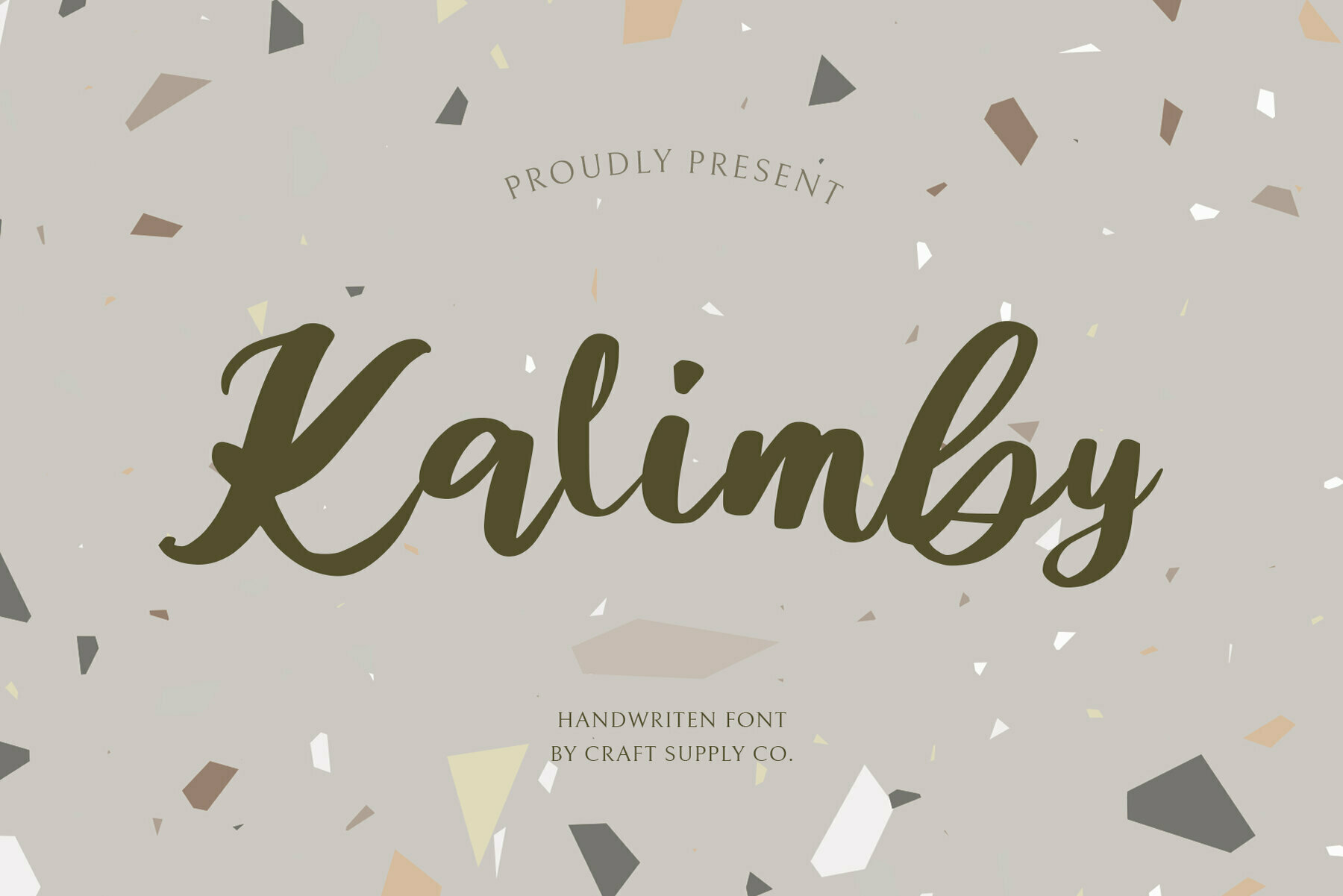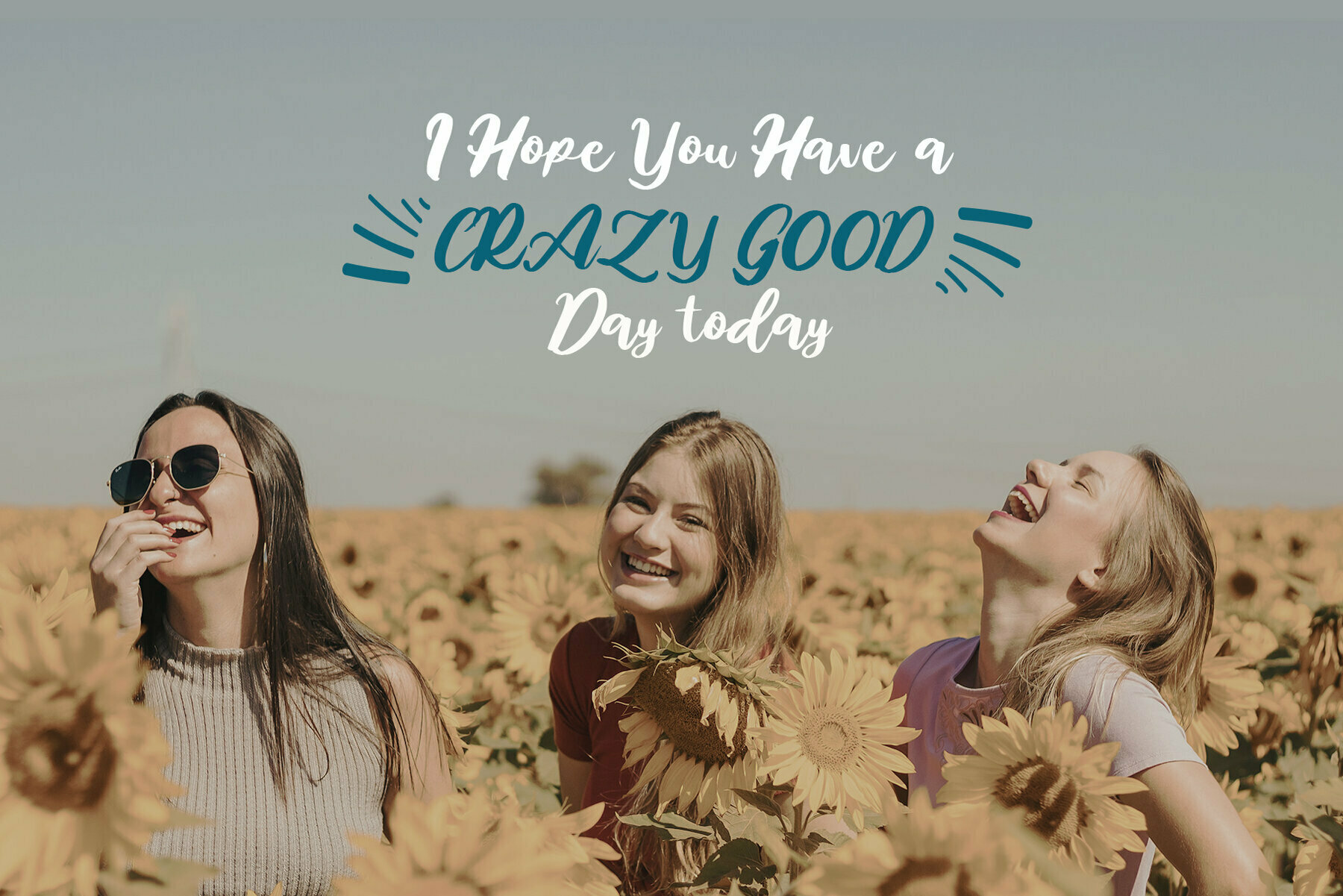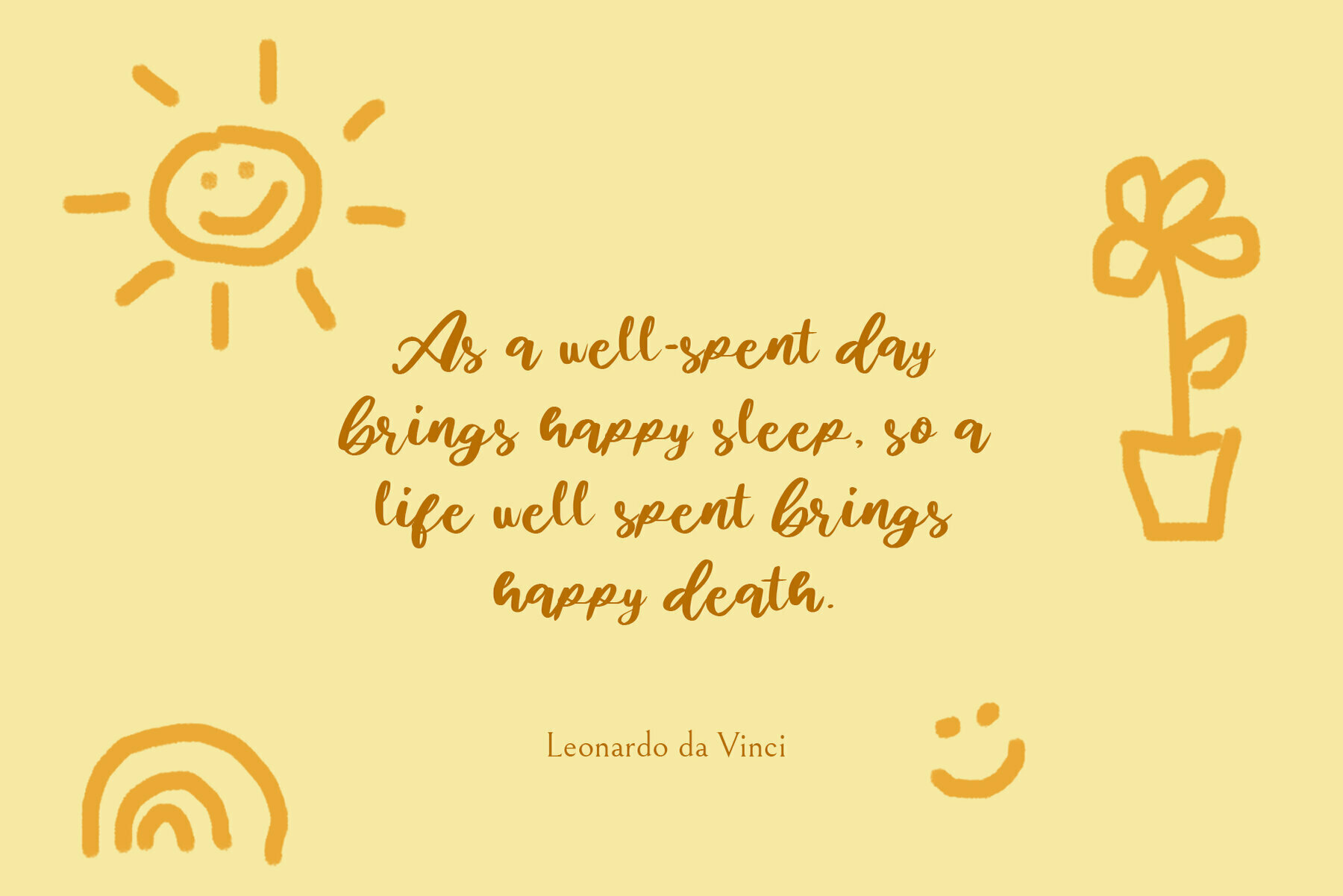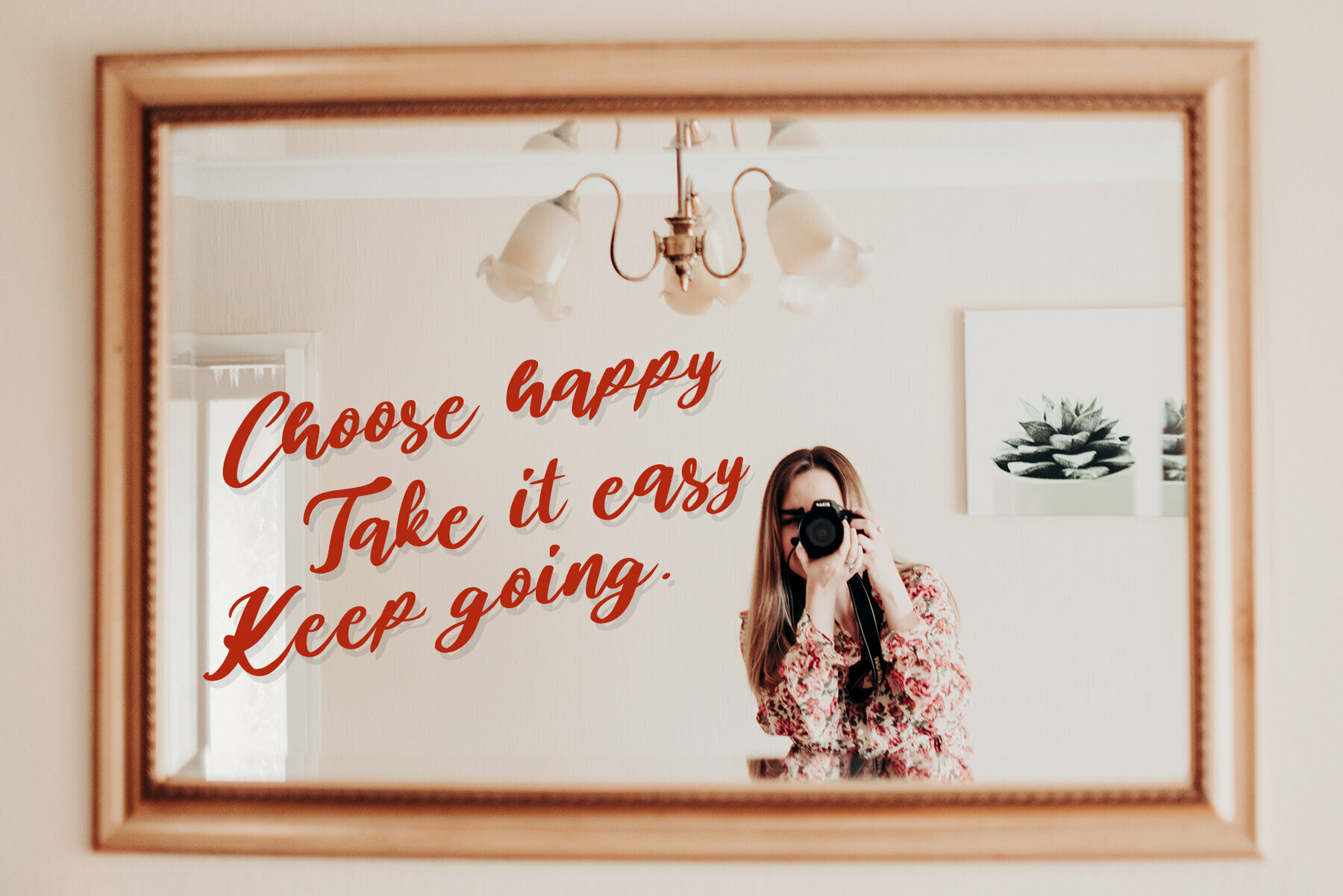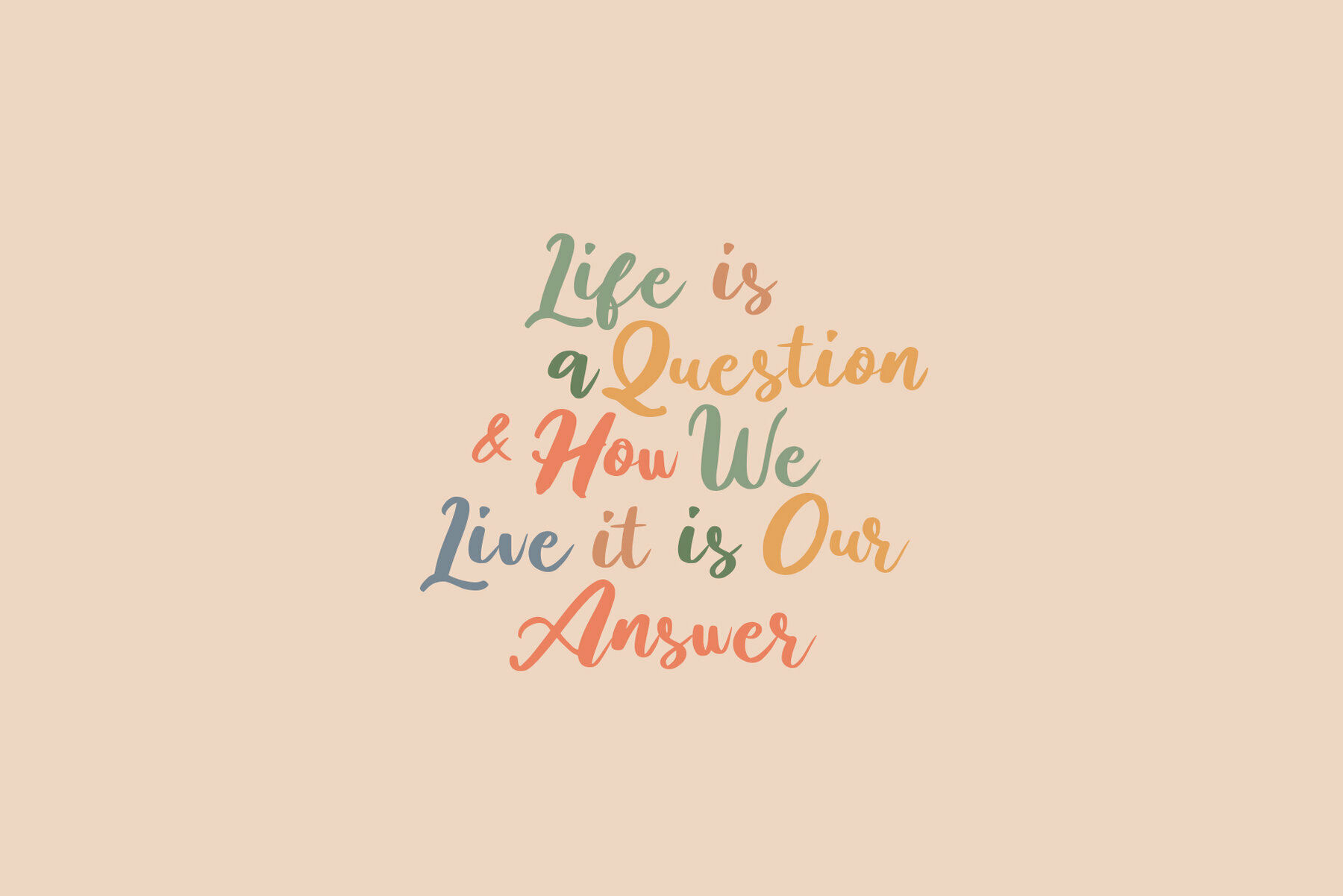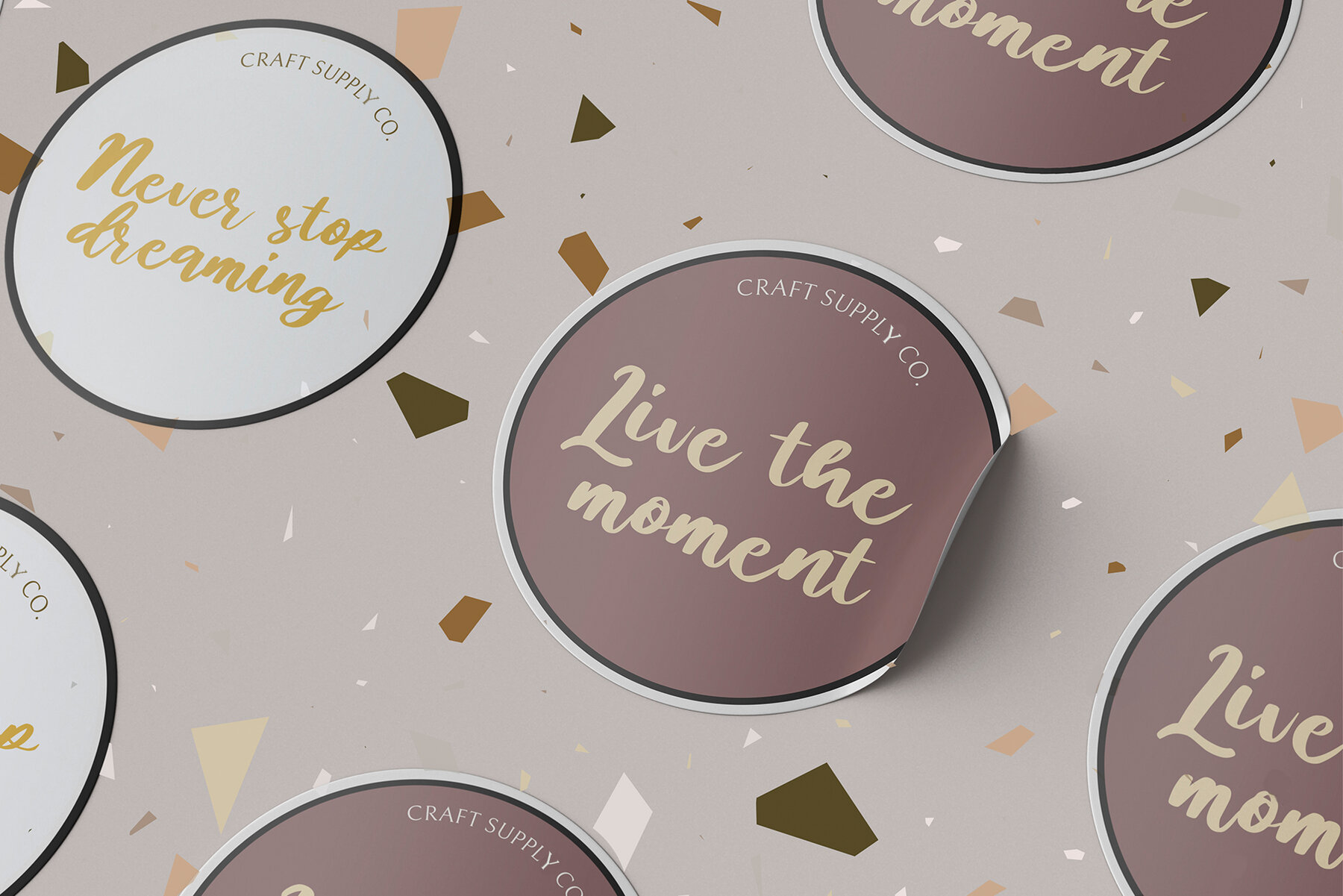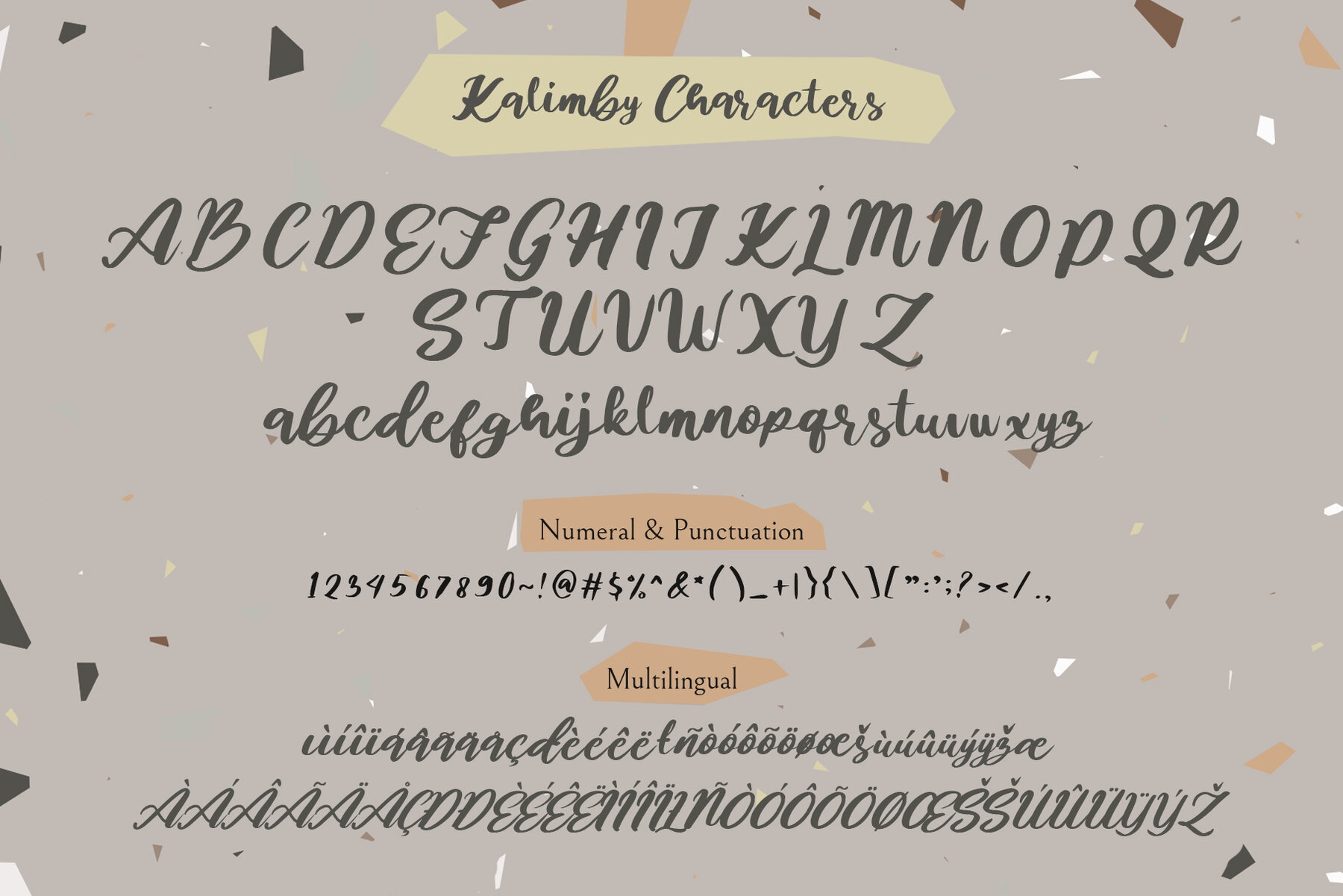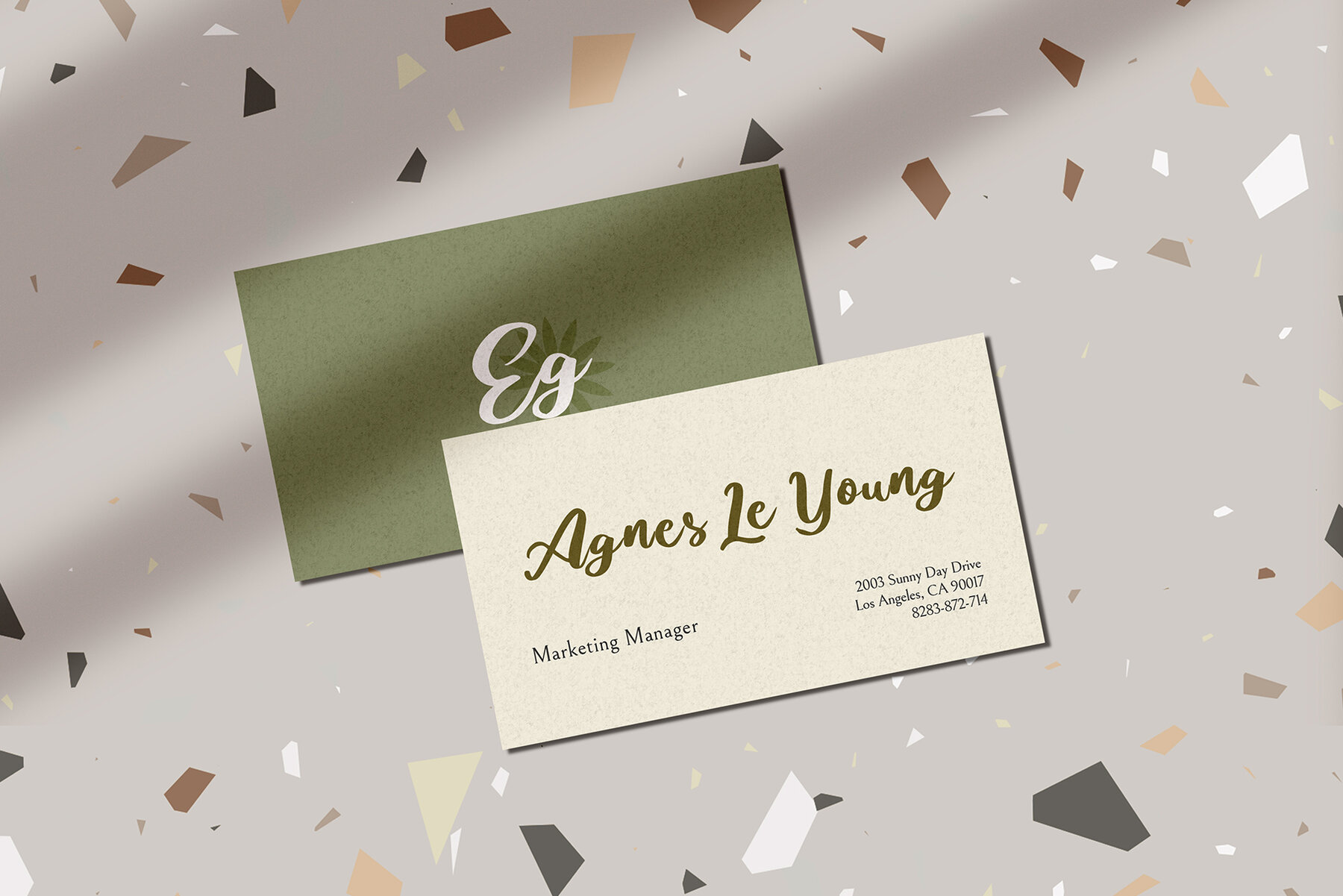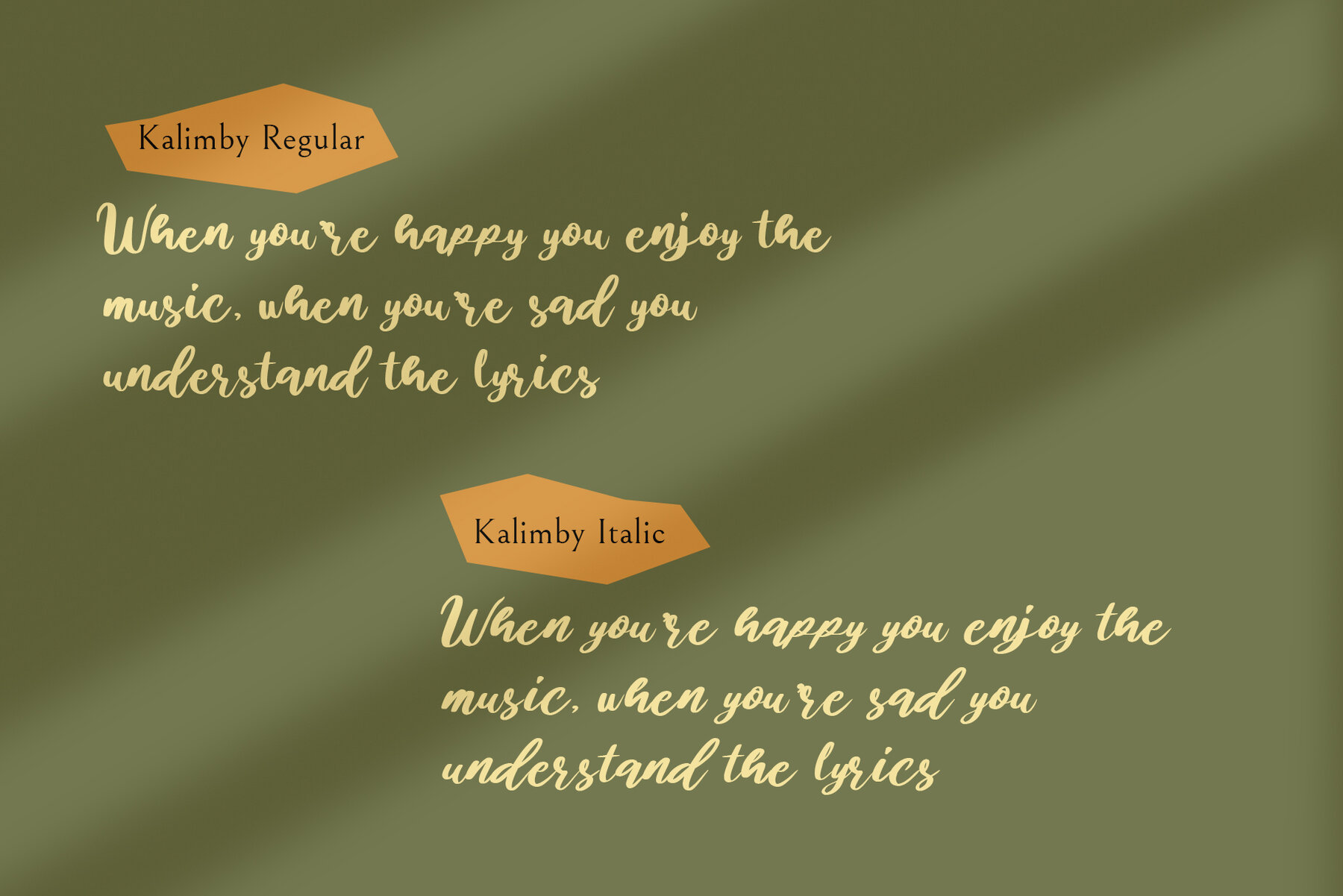
Kalimby Font
The Kalimby Handwritten Script offers a delightful blend of charm and authenticity, capturing the essence of natural handwriting. Ideal for a myriad of applications, this font seamlessly adapts to logos, greeting cards, quotes, and posters. Whether you're branding or crafting name cards, Kalimby brings a distinct personality to your design projects. With its adaptability to modern aesthetics like hand-drawn and watercolor designs, Kalimby is perfect for those looking to add a trendy, personalized touch to their projects. From book titles to DIY crafts, its potential is as expansive as your imagination.Kalimby: A Handwritten Script for Creative Projects